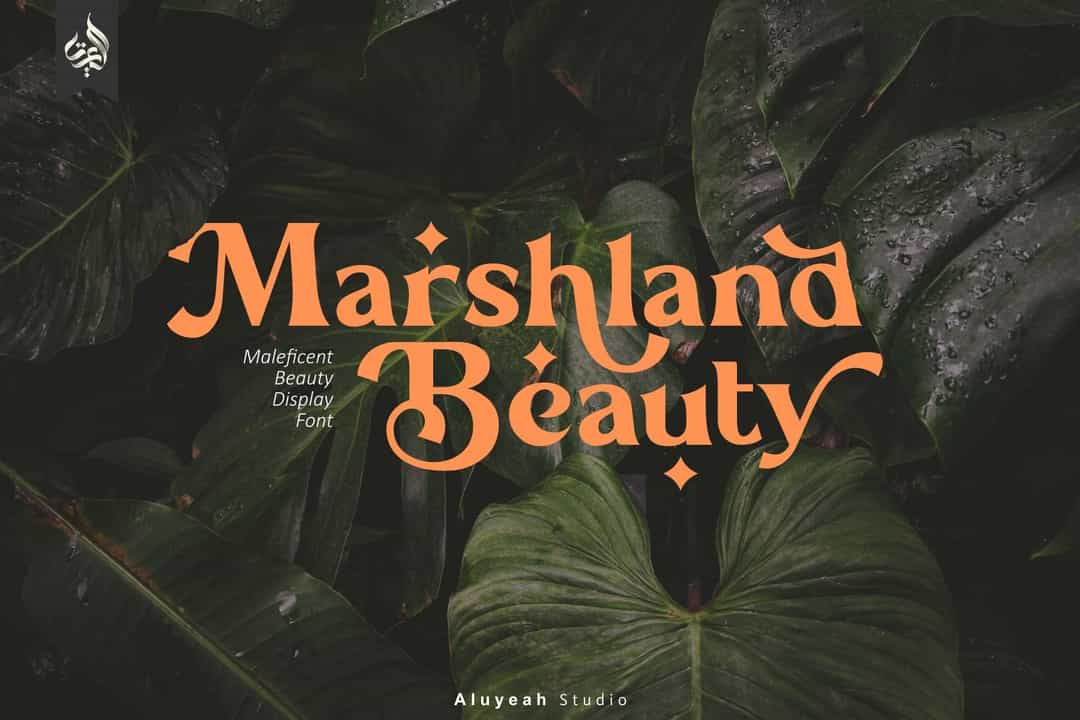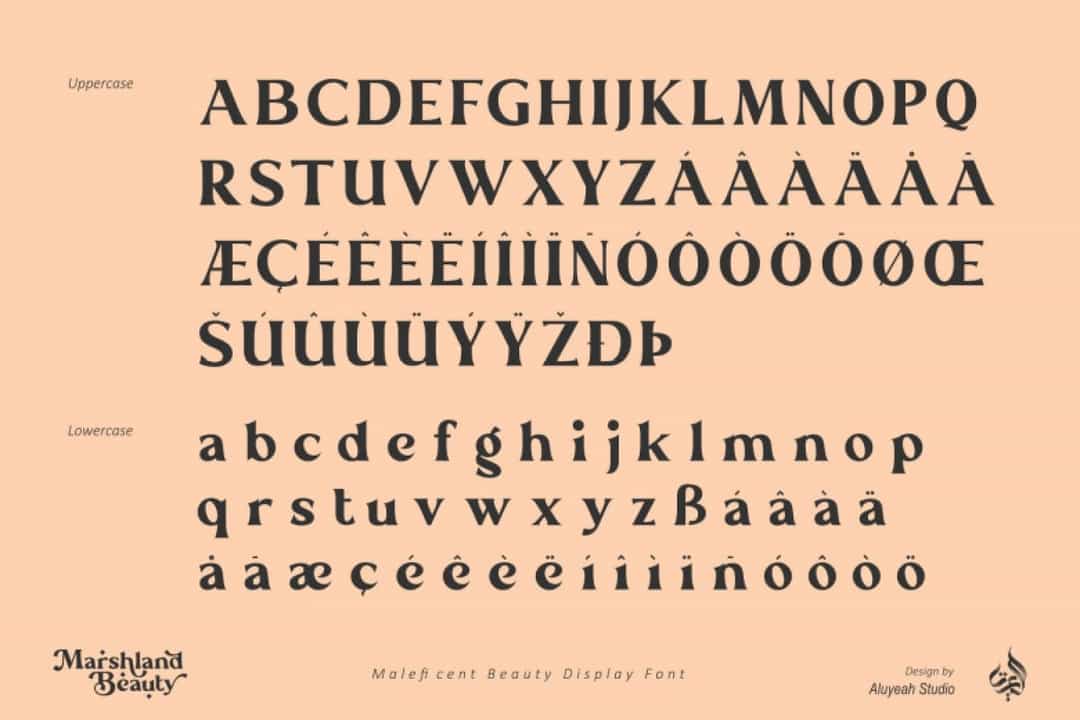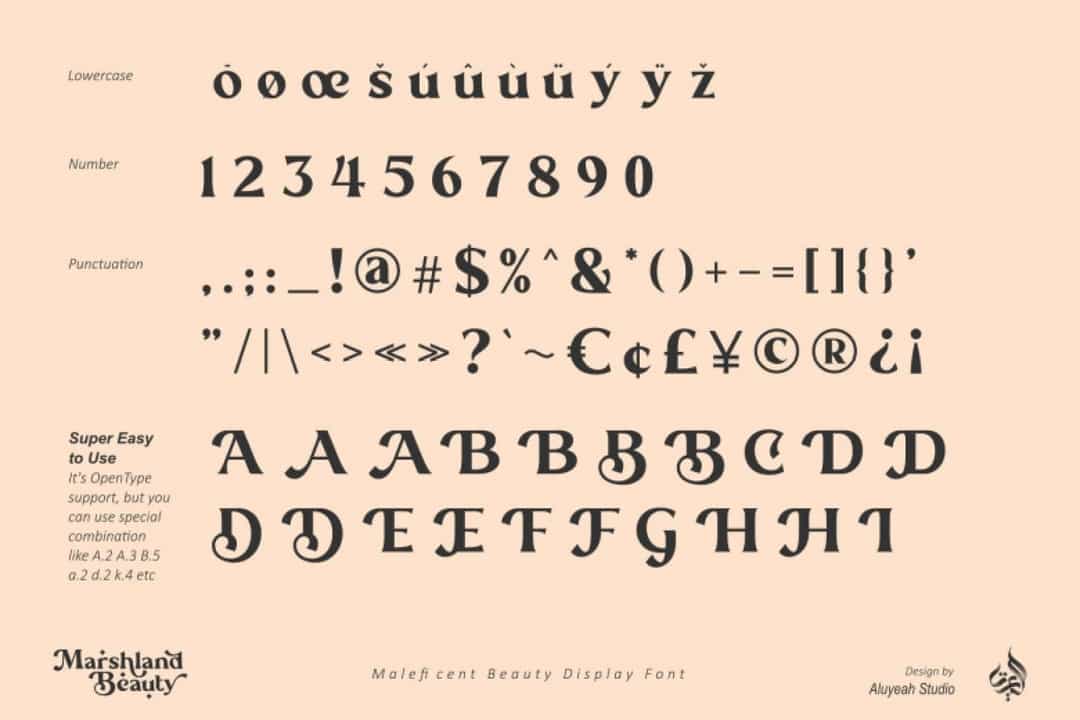
Marshland Beauty display Serif Font is a gorgeous summertime font featuring 110+ Summer Vibe Alternates that are great for magazines headlines, websites advertising campaigns, product packaging and any design work you need to complete. This font can help set the perfect ambiance in any design work.